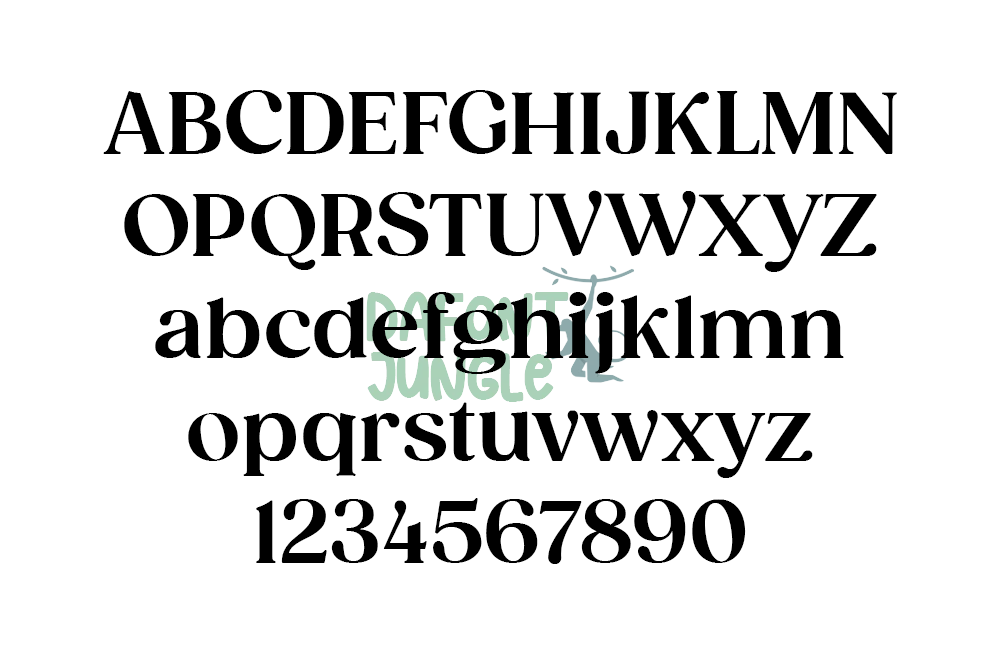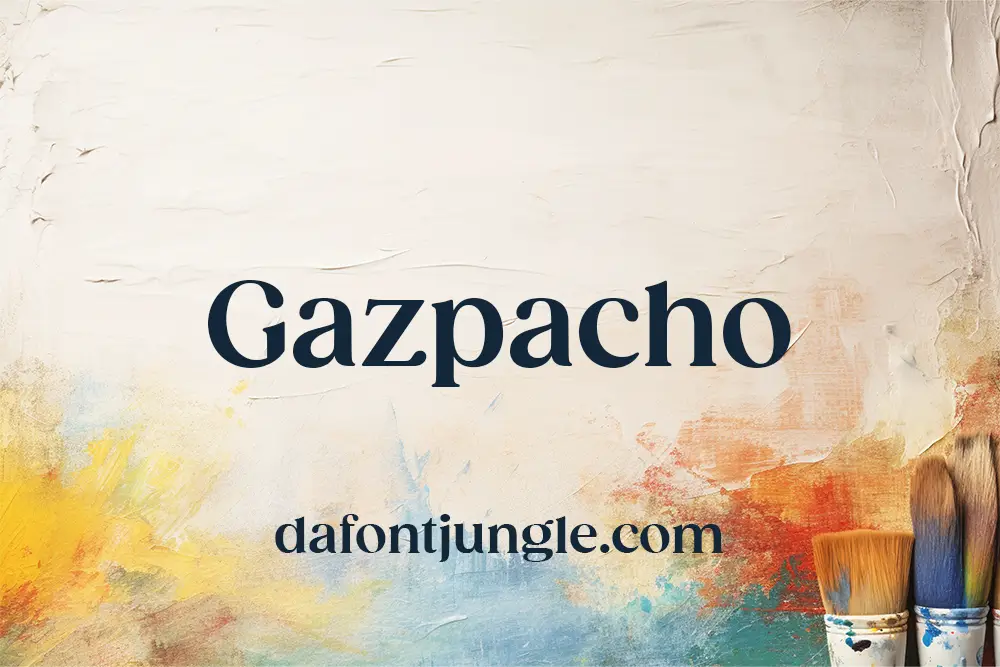
Gazpacho – Bold Serif Font for Editorial and Branding
Gazpacho is a bold serif font inspired by editorial typefaces from the 1970s and 1980s. Its clean shape, sharp contrast, and large x-height give it a strong and stylish look.
Best Uses
– Magazine covers and headlines
– Logos and branding
– Book titles and packaging
– Long text with clear readability
– Print and digital design